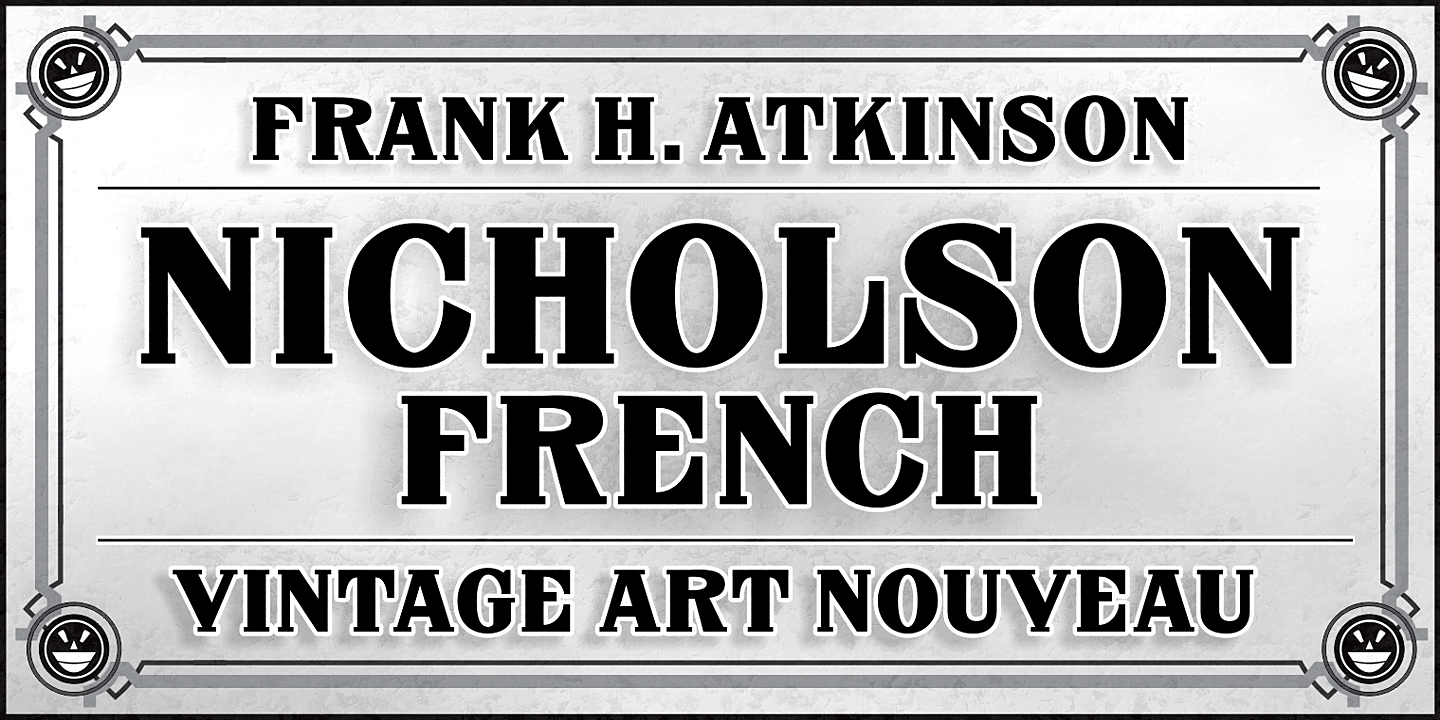
FHA Nicholson French Font is perfect for elegant design applications including French bistro branding, luxury Parisian boutique signage, sophisticated wine label design, classical French literature publications, haute couture fashion magazines, romantic wedding invitations, fine dining restaurant menus, and refined advertising campaigns that celebrate French cultural sophistication and timeless elegance.
What makes FHA Nicholson French Font exciting is its exquisite embodiment of French typographic elegance and cultural refinement that instantly transports viewers to the sophisticated streets of Paris. This magnificent typeface features gracefully crafted letterforms with distinctive French characteristics that communicate luxury, romance, and artistic heritage. The font's sophisticated personality and authentic Gallic charm make it ideal for brands seeking to establish connection with French culture and communicate values of elegance, refinement, and timeless sophistication.
FHA Nicholson French Font family encompasses multiple weights and stylistic variations designed for comprehensive French-inspired communication. The family typically includes light, regular, bold, and decorative weights, complemented by ornamental flourishes, classical ligatures, and extensive character sets with French language support and period-appropriate typographic elements.
Luxury brand designers consistently choose FHA Nicholson French Font Free Download for projects requiring typography that embodies authentic French sophistication and cultural elegance. This distinguished typeface adapts beautifully across contemporary and classical applications, delivering consistent brand messaging with unmistakable Parisian flair and refined appeal. The font's meticulously crafted letterforms ensure cultural authenticity while maintaining excellent modern readability. International creative agencies rely on this culturally rich typeface to communicate brand values of luxury, romance, and French heritage. Establish your brand's sophisticated French connection with FHA Nicholson French Font and create memorable visual communications that resonate with audiences who appreciate authentic European elegance and the timeless appeal of French design traditions.